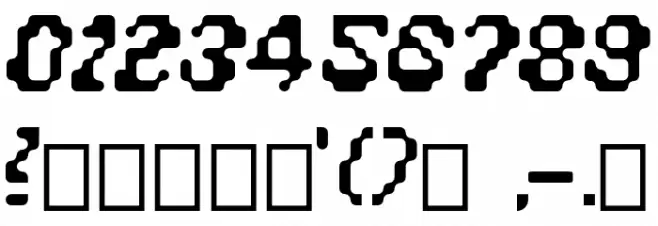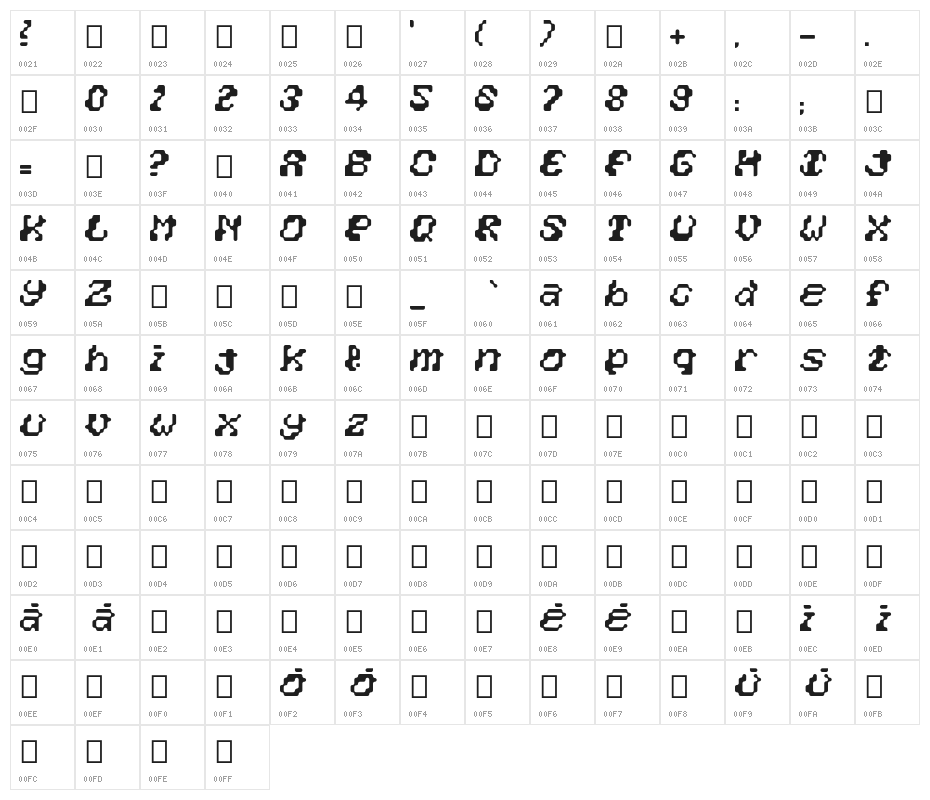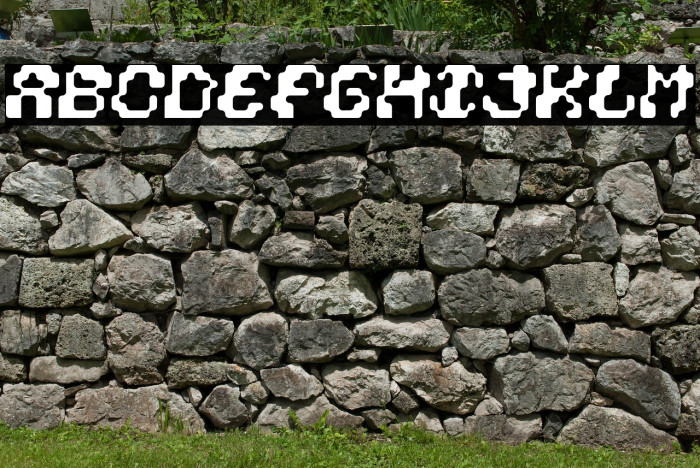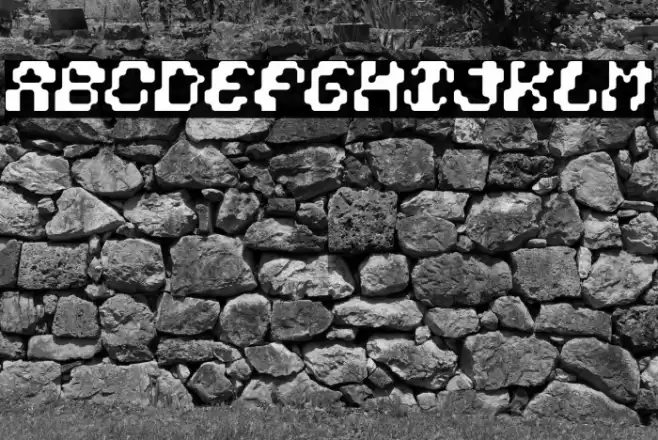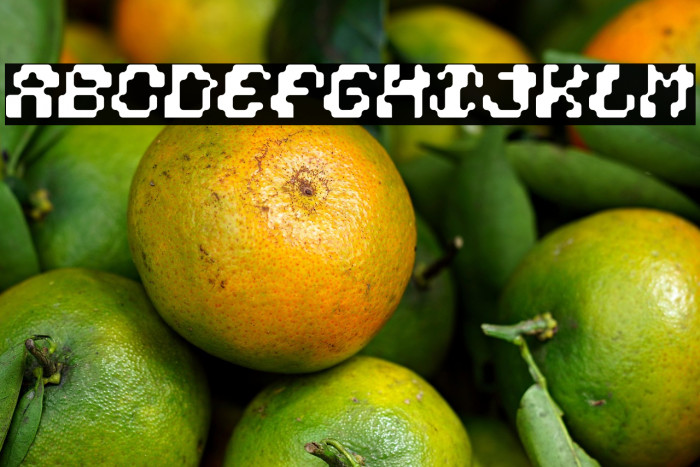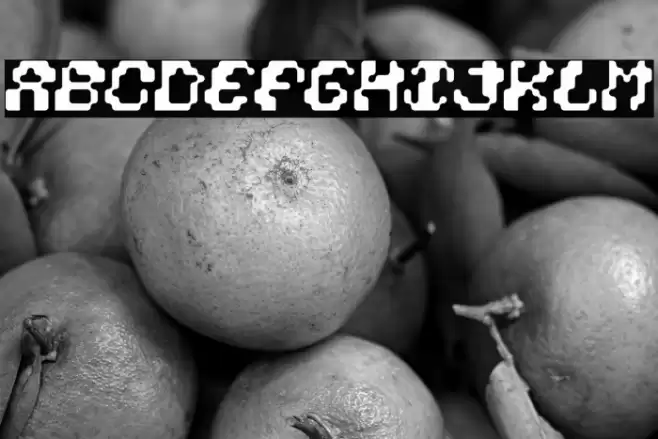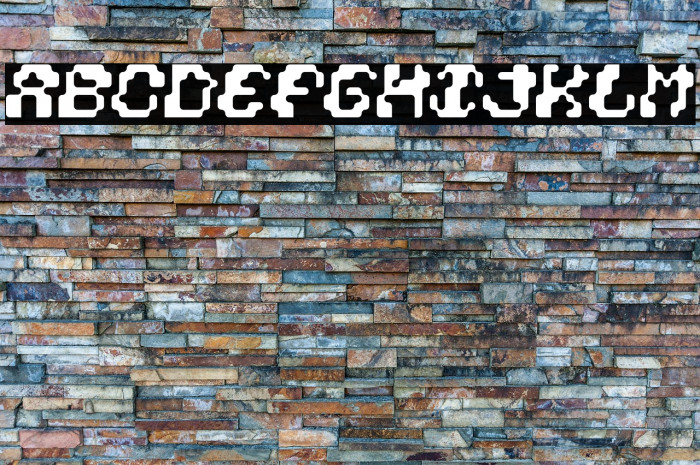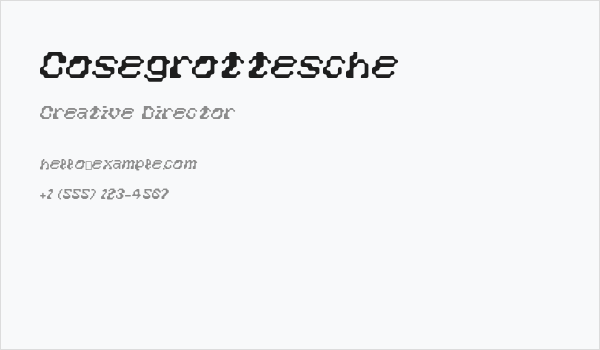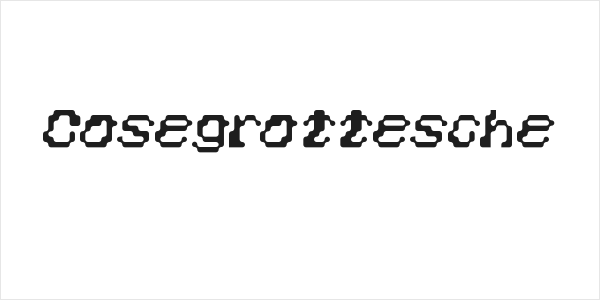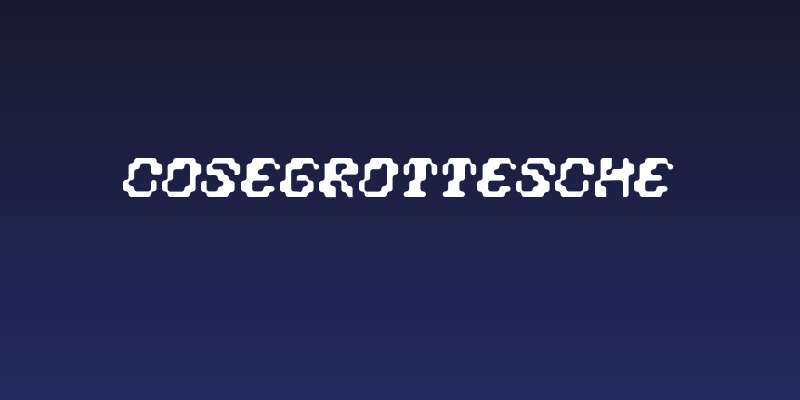
Cosegrottesche Font
Cosegrottesche Description
This font features a unique, decorative style with bold, irregular shapes that create a playful and artistic appearance. The characters are formed with thick, uneven strokes that give them a distinctive, almost organic look. The uppercase and lowercase letters maintain a consistent design, while the numbers and special characters follow the same aesthetic, ensuring a cohesive visual identity. The font's boldness and quirky design make it stand out, suitable for creative and unconventional projects.
| Proposed Projects | Ideal for artistic posters, creative branding, unique logos, and eye-catching headlines. |